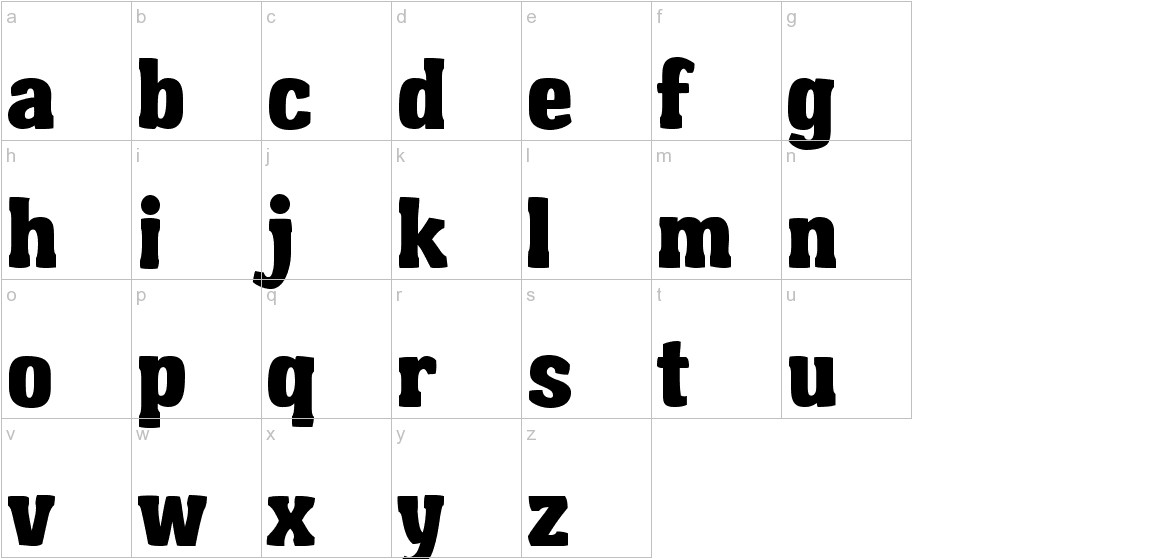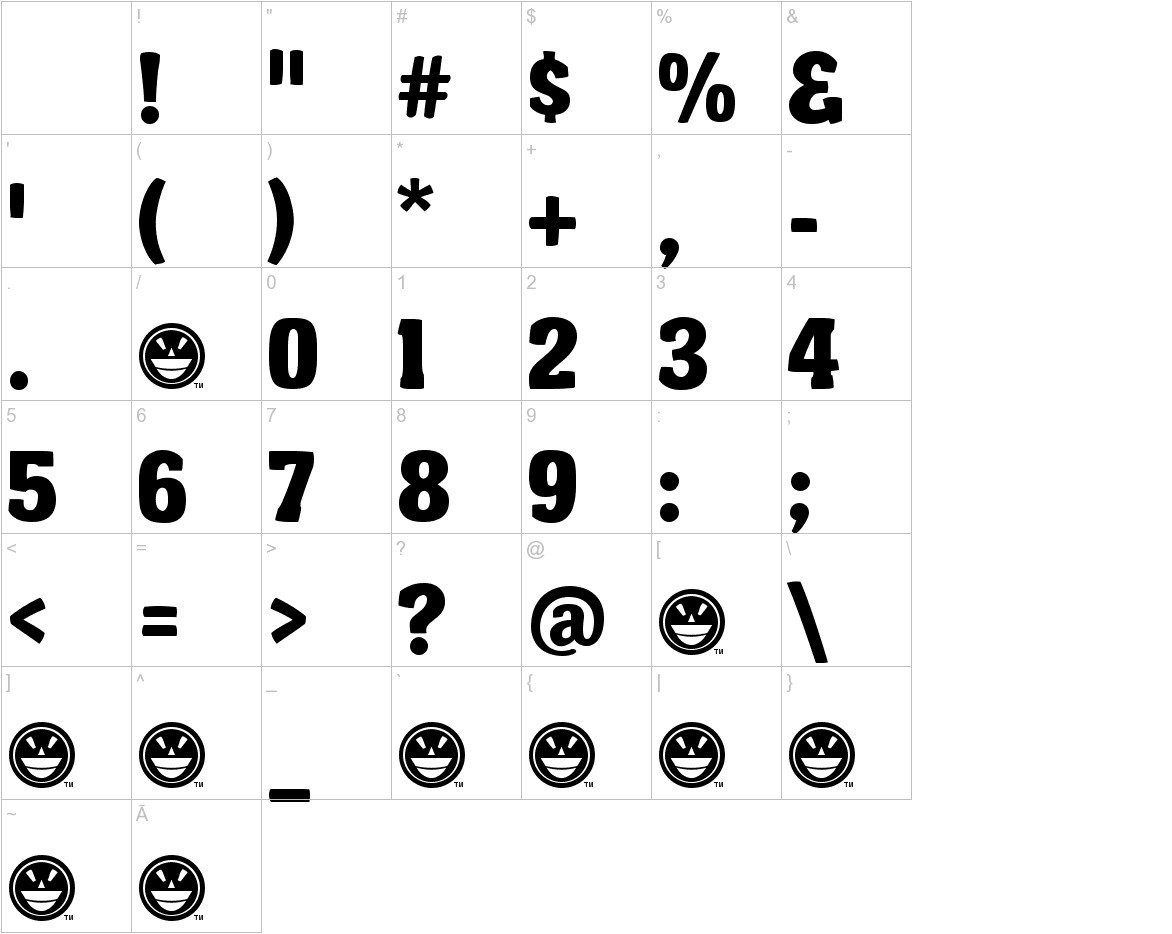
Garishing Worse
Garishing Worse by Michael G. Adkins
It does not seem probable that you would ever need another font originating from some questionable distortionary source, and yet some will ultimately click the button and add this face to their already bloating font list. But no matter the number of fonts, few people are upset with the type overload, or as just suggested, "type bloat." This is a limited freeware version, but there is a commercial version to be had, complete with foreign characters and the usual line-up of glyphical villains. There's even support for Central European diacratics, Greek, Hebrew and Cyrillic. No sense leaving entire countries out of the fun. If you do decide to buy Garishing Worse in all its glorious completeness, remember that subsidizing this font will only lead to more fonts just like this one being loosed on a public with hopelessly swollen font lists already garbing up their file managers. And that would be garish beyond comprehension.